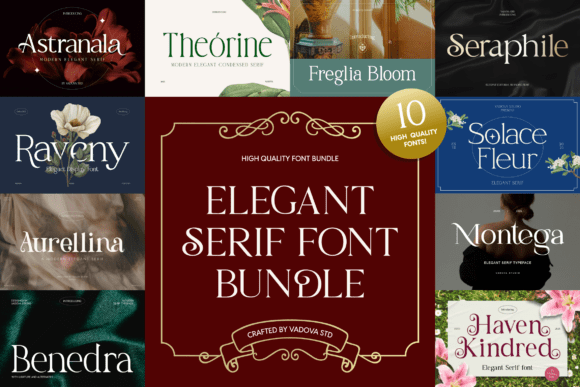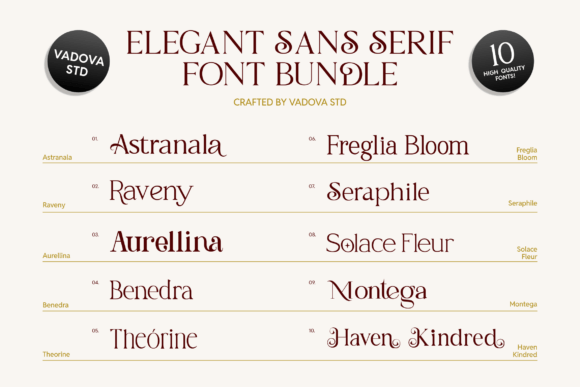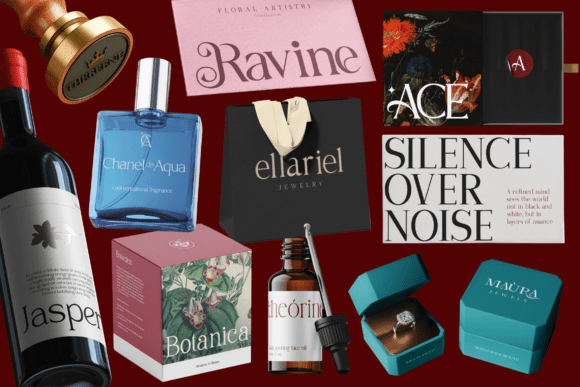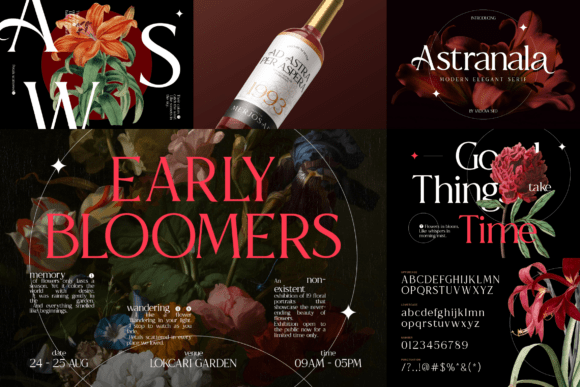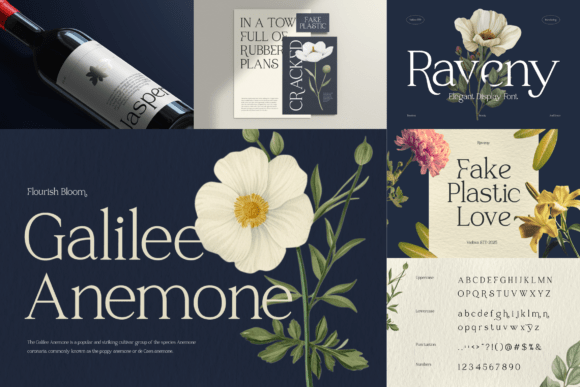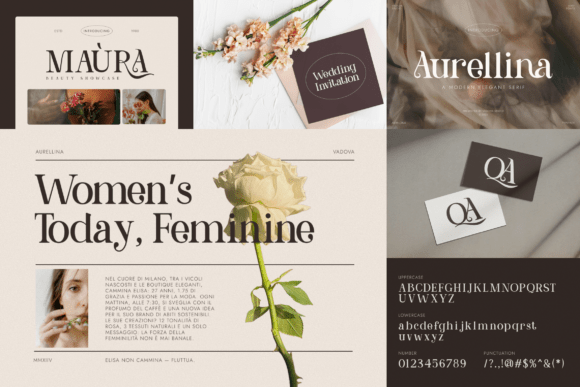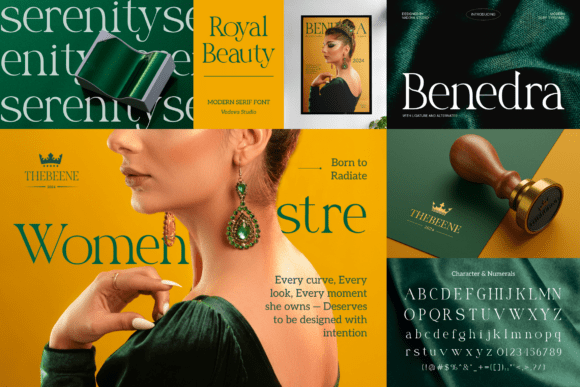
Unlock the Power of Timeless Typography
Have you ever stared at a blank page, searching for the perfect font to elevate your design from ordinary to extraordinary? You’re not alone. As creatives, we’ve all been there, searching for that elusive combination of style and sophistication to make our projects shine. That’s where the Elegant Serif Bundle Font comes in – a curated collection of refined serif typefaces designed to bring a touch of luxury and elegance to your creative endeavors.
This bundle is a game-changer for designers, offering a versatile range of fonts that can be used in everything from luxury branding and editorial layouts to product packaging and marketing materials. With its perfect blend of classic charm and modern refinement, the Elegant Serif Bundle Font is an invaluable addition to any designer’s toolkit.
Elegant Serif Bundle Font Key Features
- Font Family: 12 high-quality serif fonts, each with its unique character and style
- Unique Characteristics: Elegant, sophisticated, and classic serif fonts perfect for business, editorial, and publishing projects
- Language Support: Supports over 200 languages, including Latin, Cyrillic, and Greek alphabets
Elegant Serif Bundle Font Review
I’ve been experimenting with the Elegant Serif Bundle Font for a while now, and I’m excited to share my honest review with you.
- The font’s classic serif style is perfect for creating a sophisticated and professional look.
- The bundle includes a wide range of weights and styles, making it versatile for various design projects.
- The font’s legibility is excellent, even at small sizes.
- The font’s design is not particularly innovative or groundbreaking.
Overall, the Elegant Serif Bundle Font is a solid choice for designers looking for a classic, professional font. While it may not be the most exciting or innovative font on the market, its versatility and affordability make it a reliable option for various design projects. With some limitations to consider, I’d recommend this font to designers who value a timeless, elegant look.
Use the Elegant Serif Bundle Font to add a touch of sophistication to your Canva designs, such as invitations, business cards, and brochures.
Use the Elegant Serif Bundle Font to add a professional touch to your Adobe designs, such as business logos, editorial layouts, and advertising materials.
Use the Elegant Serif Bundle Font to add a touch of elegance to your presentations and documents, such as reports, resumes, and academic papers.
Tips for Getting the Most Out of the Elegant Serif Bundle Font
Experiment with different font combinations and sizes to create a unique visual identity.
Use the Elegant Serif Bundle Font in conjunction with bold and italic fonts to add emphasis and create visual hierarchy.
Pay attention to font size and line spacing to ensure readability and clarity.
Alternatives to Elegant Serif Bundle Font
1. Merriweather
Merriweather is a classic serif font designed by Eben Sorkin. It’s ideal for long blocks of text, such as articles and books, where readability is crucial. Merriweather has a more formal and traditional feel compared to Elegant Serif Bundle Font, which is more modern and versatile.
Merriweather is a great choice when you need a font that exudes sophistication and elegance, but also provides excellent readability. It’s a bit more formal than Elegant Serif Bundle Font, making it suitable for formal documents, academic papers, and high-end publications.